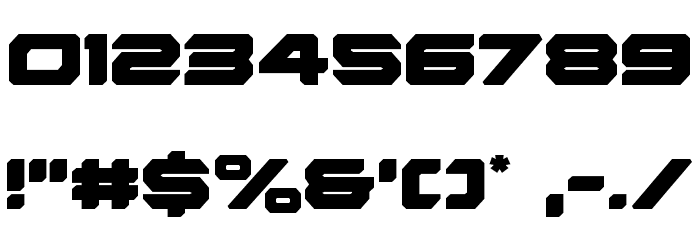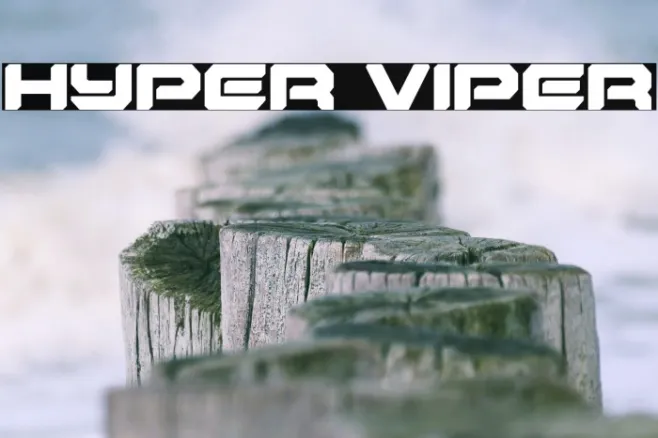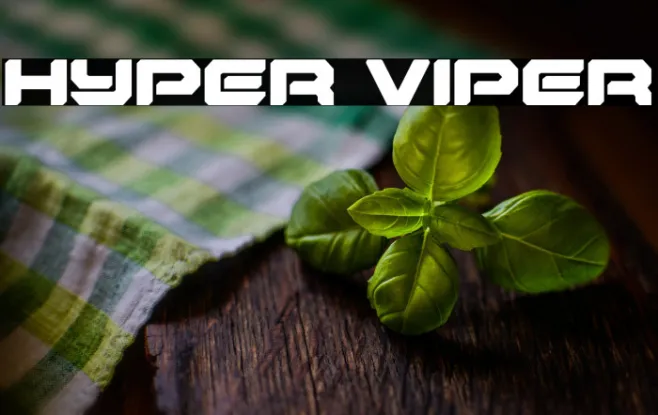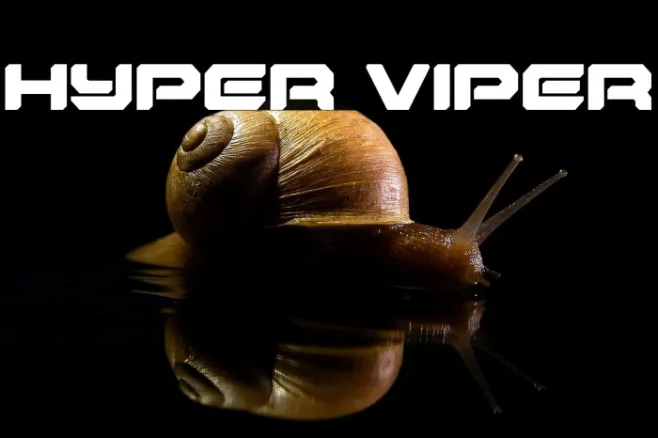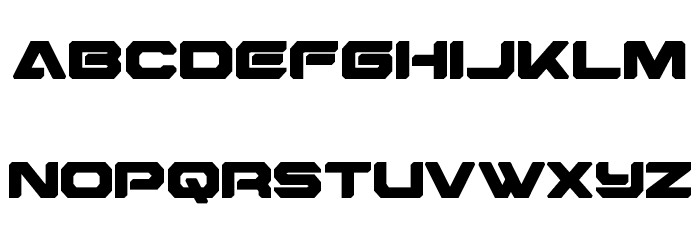
Hyper Viper Font
Hyper Viper Description
This font features a bold, futuristic design with angular, geometric shapes that give it a strong, impactful presence. The characters are uniformly thick, creating a sense of solidity and stability. The uppercase and lowercase letters maintain a consistent style, with sharp edges and a slightly condensed form. The numerals and special characters follow the same design principles, ensuring a cohesive look across all glyphs. This font's unique style makes it ideal for projects that require a modern and edgy aesthetic.
| Proposed Projects | Ideal for sci-fi themed designs, video game titles, tech branding, and modern posters. |